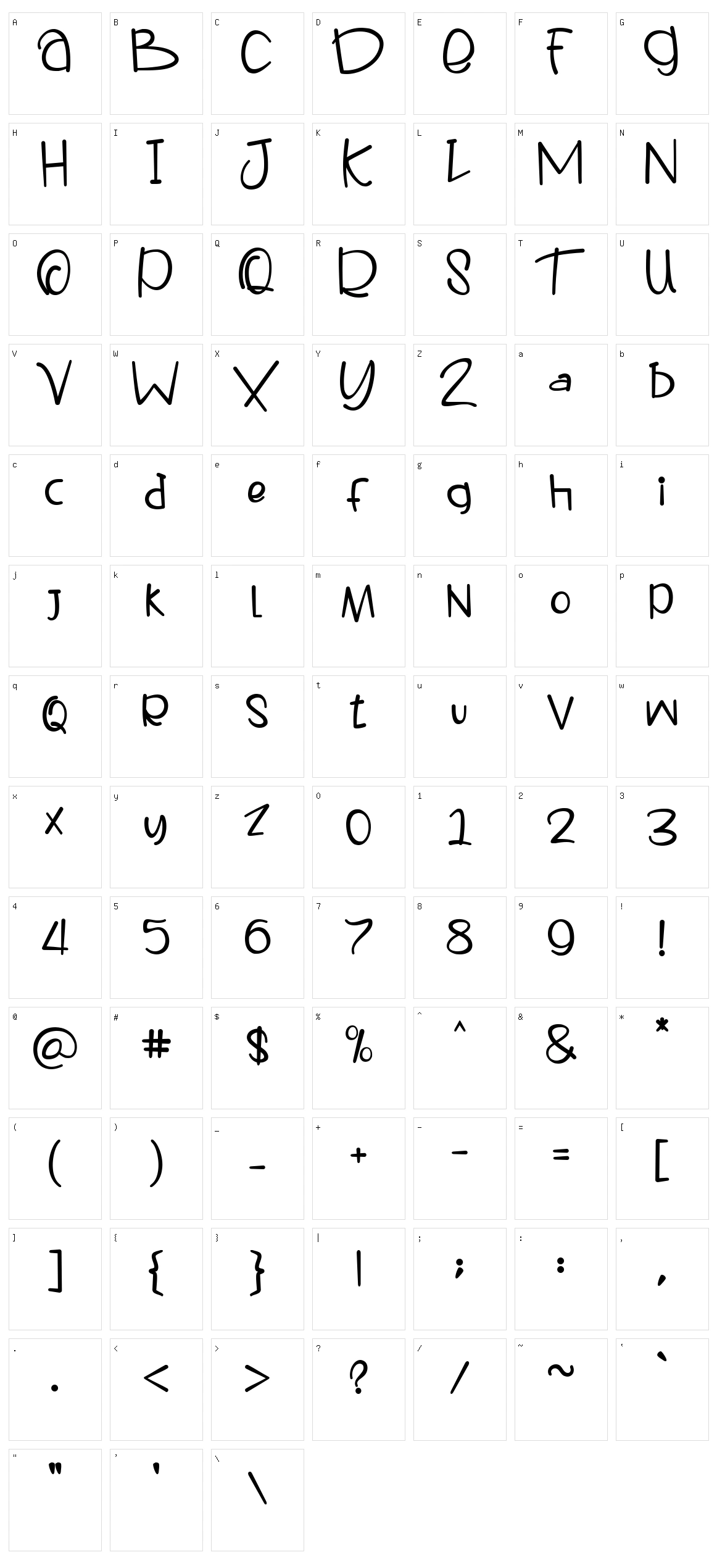
The free font Easter Sunday is carefully designed by Letterara, showcasing a thoughtful balance of creativity and usability and falls under the Cartoon font style. When you download the ZIP file, it contains only 330.32 KB of font files, making it lightweight and quick to download. Please review the license details below to understand permitted usage and distribution rights. If license information is not available, we recommend using this font for personal projects only or contacting the author directly for commercial usage permissions.